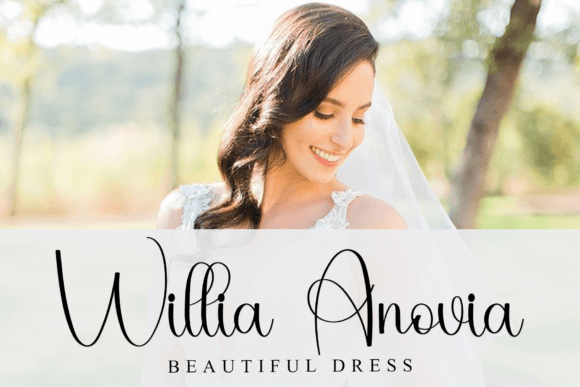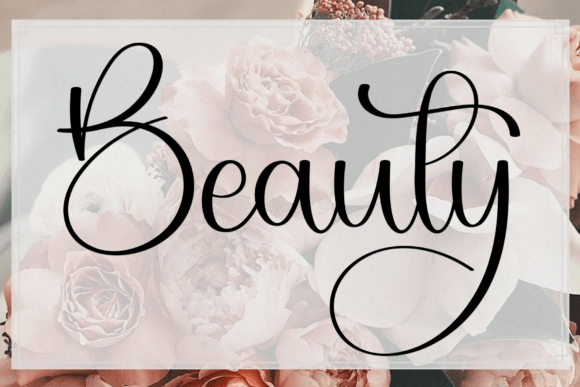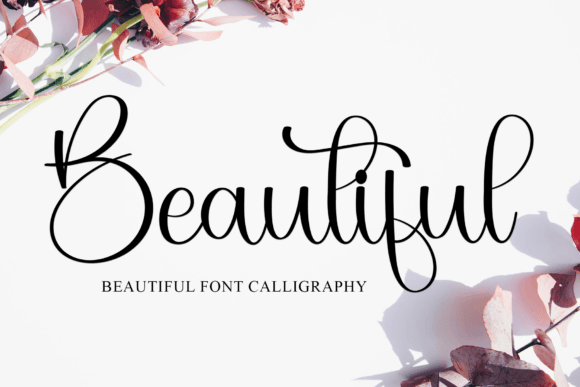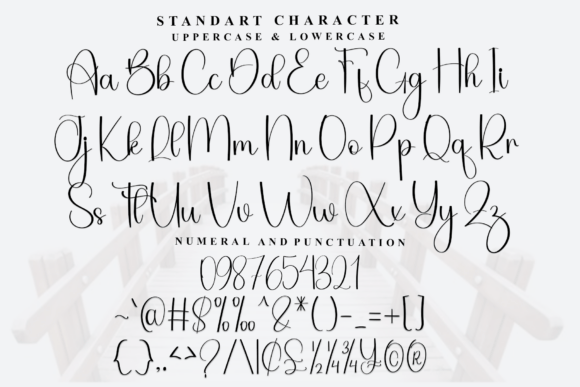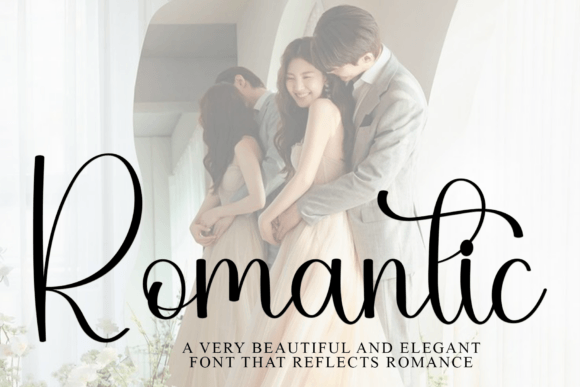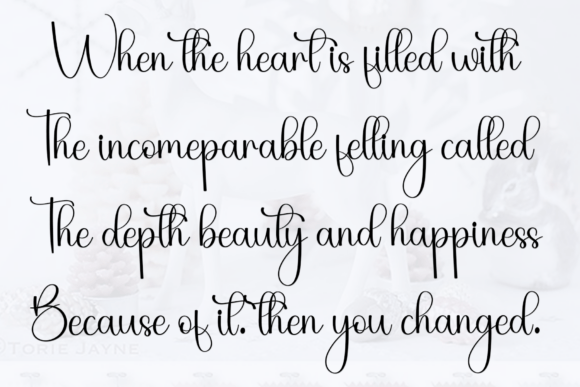
Bettey Font: The Perfect Choice for Creative and Personal Projects
Are you looking for a font that can add a touch of warmth and friendliness to your designs? Look no further than Bettey Font! This casual and creative font is perfect for personal projects, invitations, social media graphics, and more. Its round, playful strokes create a relaxed and approachable feel that’s sure to capture the attention of your audience.
The Charm of Bettey Font
Bettey Font boasts a charming, hand-drawn aesthetic that’s perfect for designers and crafters who want to add a fun and unique touch to their work. The font’s playful strokes and rounded edges create a sense of warmth and approachability, making it ideal for projects that require a personal touch. Whether you’re designing an invitation, a social media graphic, or a personal blog, Bettey Font is sure to bring a smile to your audience’s face.
Key Features of Bettey Font
- Casual and Creative: Bettey Font is a casual and creative font that’s perfect for personal projects and designs that require a touch of warmth and friendliness.
- Hand-Drawn Aesthetic: Bettey Font boasts a charming, hand-drawn aesthetic that adds a fun and unique touch to any design.
- Playful Strokes: The font’s round, playful strokes create a relaxed and approachable feel that’s perfect for personal projects and designs.
Why Choose Bettey Font?
So, why choose Bettey Font for your next project? Here are just a few reasons:
- Easy to Read: Bettey Font is easy to read, even at small sizes, making it perfect for designs that require a lot of text.
- Versatile: This font is versatile and can be used for a wide range of projects, from personal blogs to social media graphics.
- Unique: Bettey Font has a unique and charming aesthetic that’s sure to set your designs apart from the crowd.
- Use it for Headings: Bettey Font is perfect for headings and titles, but it can also be used for body text.
In conclusion, Bettey Font is a casual and creative font that’s perfect for designers and crafters who want to add a touch of warmth and friendliness to their designs. Its charming, hand-drawn aesthetic and playful strokes create a relaxed and approachable feel that’s sure to capture the attention of your audience. With its standard PUA Encoded glyphs and compatibility with various application engines, Bettey Font is easy to use and versatile. So, why not give it a try and see how it can elevate your designs?
Whether you’re a seasoned designer or a crafter looking for a unique font for your next project, Bettey Font is an excellent choice. Its unique aesthetic and ease of use make it perfect for a wide range of projects, from personal blogs to social media graphics. So, go ahead and get creative with Bettey Font – your designs will thank you!